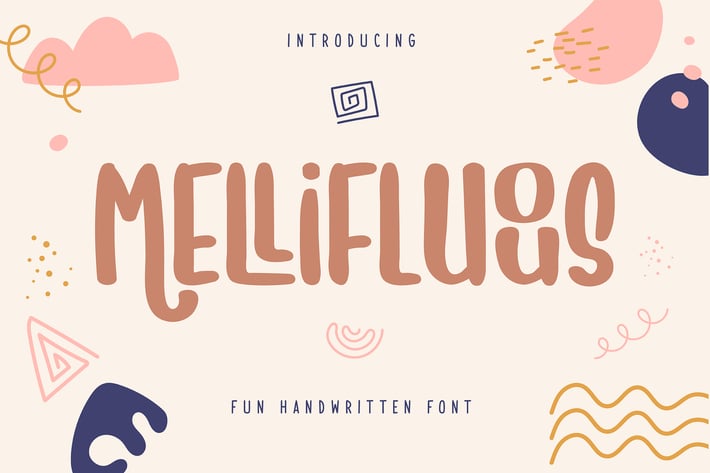
Mellifluous | Fun Handwritten Font
Mellifluous | Fun Handwritten Font with a calligraphy style, So beautiful on invitation like greeting cards, branding materials, business cards, quotes, posters, and more!